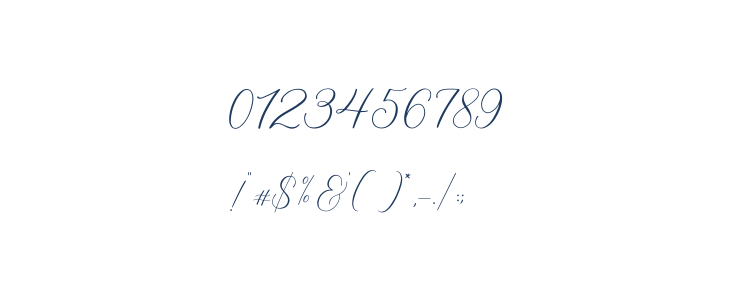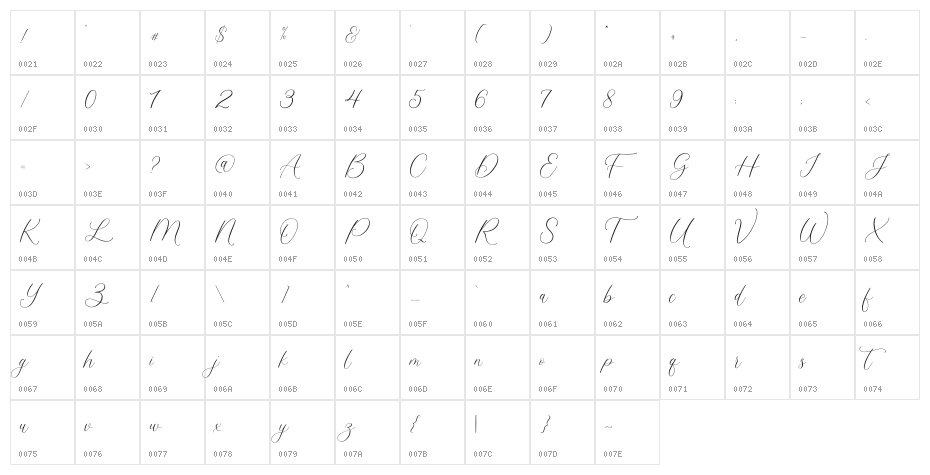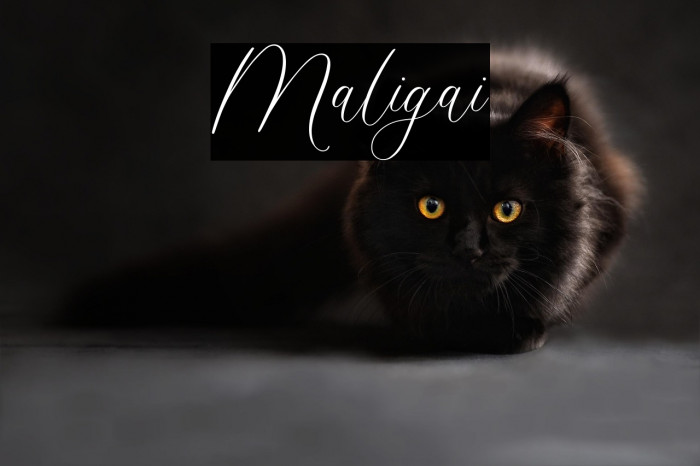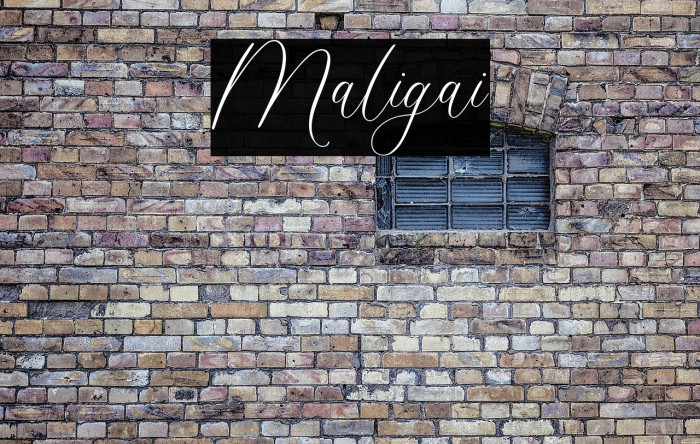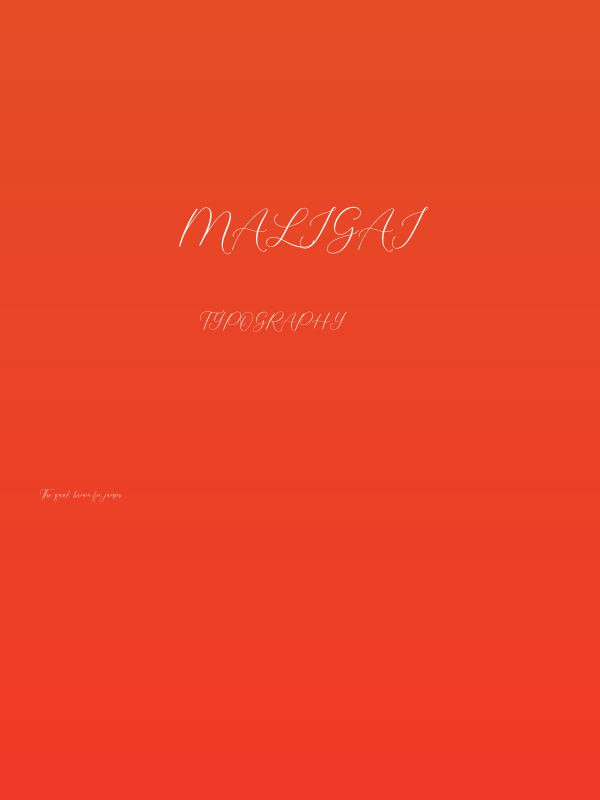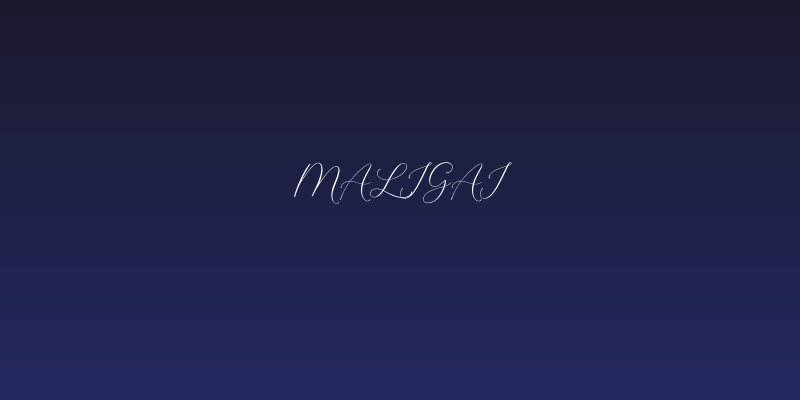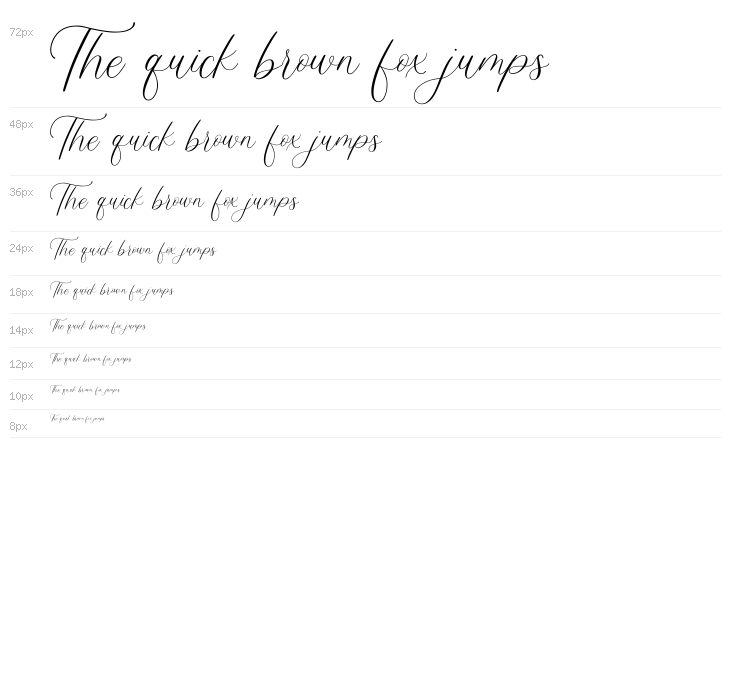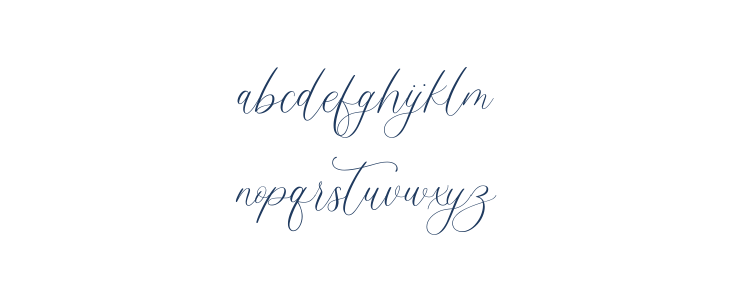
Maligai Font
Maligai Description
This elegant script font features flowing, cursive strokes that exude sophistication and grace. The uppercase letters are characterized by their tall, sweeping ascenders and delicate loops, while the lowercase letters maintain a consistent fluidity with gentle curves and flourishes. The numerals and special characters complement the overall style with their refined and graceful appearance. The font's thin lines and high contrast between thick and thin strokes add a touch of modernity to its classic script form, making it suitable for a variety of upscale design projects.
| Overall Style | Elegant, Classic |
| Proposed Projects | Ideal for wedding invitations, luxury branding, elegant packaging, and high-end editorial design. |